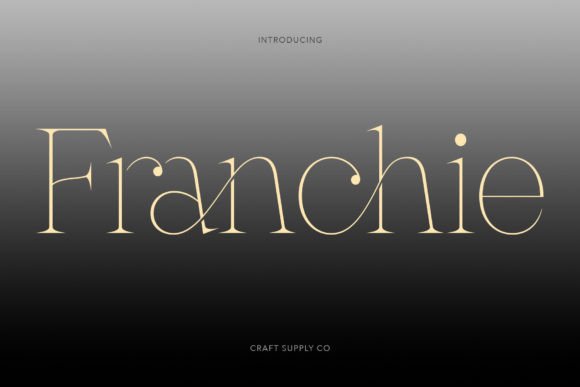
Franchie Font: An Ode to Elegance and Minimalism
In the realm of typography, Franchie Font stands as a beacon of modern elegance and minimalist charm. Its thin strokes, unique shapes, and geometric elements dance together in harmony, creating a visual masterpiece that exudes refinement and sophistication. Step into the world of Franchie Font and let its clean lines and balanced design captivate your senses, leaving you breathless with its understated beauty.
Unleash the Power of Simplicity
With Franchie Font, simplicity takes center stage, allowing your words to shine with unparalleled clarity and impact. Its minimalist design ensures that your message is never overshadowed by ornate embellishments, allowing it to resonate with readers on a deeper level. Whether you're crafting a book manuscript, designing a sleek logo, or creating eye-catching marketing materials, Franchie Font will lend an aura of sophistication and professionalism to your work.
Transport Yourself to a World of Modern Branding
In the competitive world of branding and advertising, Franchie Font emerges as your secret weapon. Its clean lines and geometric elements create a timeless aesthetic that resonates with contemporary audiences, making it the perfect choice for businesses seeking to project an image of innovation and sophistication. Whether you're designing a sleek website, crafting captivating social media posts, or developing eye-catching marketing materials, Franchie Font will elevate your brand identity to new heights.
The Perfect Palette for Your Literary Masterpieces
For authors and writers seeking the ideal font to bring their literary visions to life, Franchie Font presents itself as the perfect companion. Its thin strokes and unique shapes lend an air of elegance and sophistication to your written words, transforming them into works of art that captivate readers from the very first page. Whether you're writing a captivating novel, a poignant memoir, or a thought-provoking essay, Franchie Font will provide the perfect backdrop for your storytelling, allowing your words to flow effortlessly and engage readers on an emotional level.
Experience the Allure of Franchie Font Today